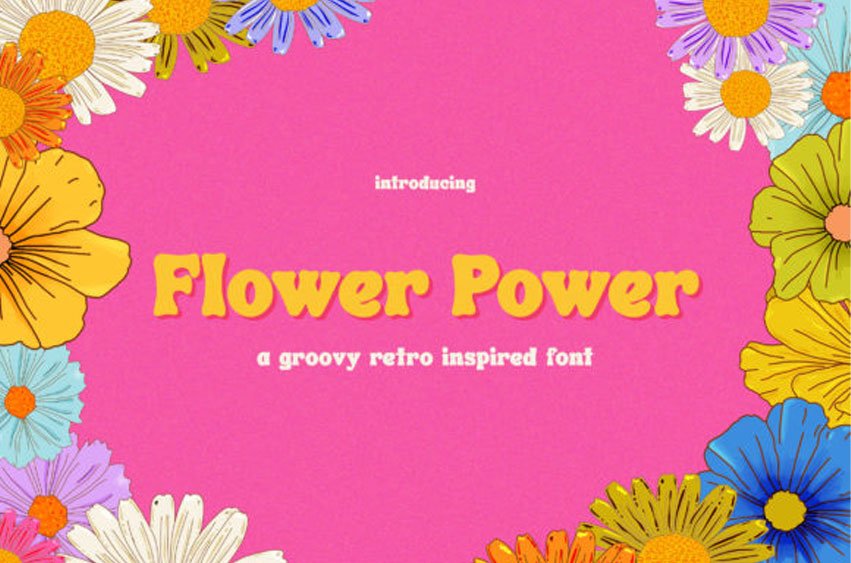
Flower Power Font is a chunky and friendly display font.
With uneven characters that make the design approachable and playful, this font is perfect for book titles, game titles, magazines, apparel designs, and so much more!